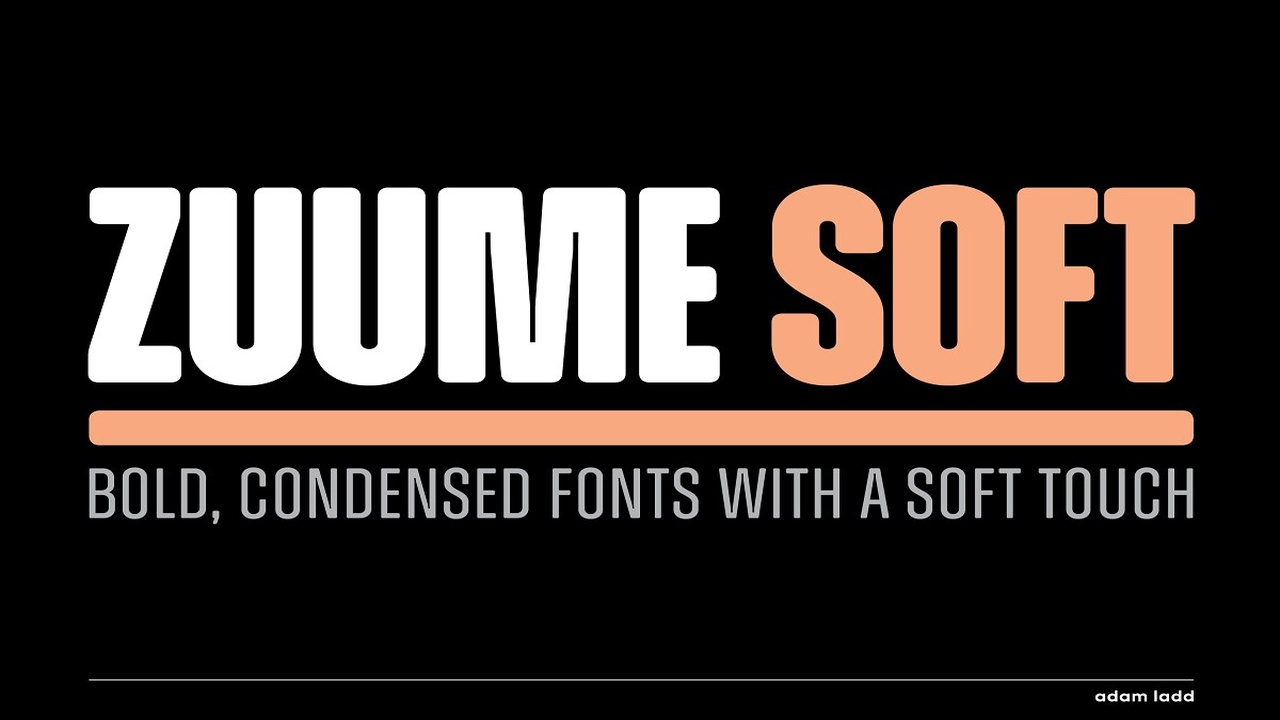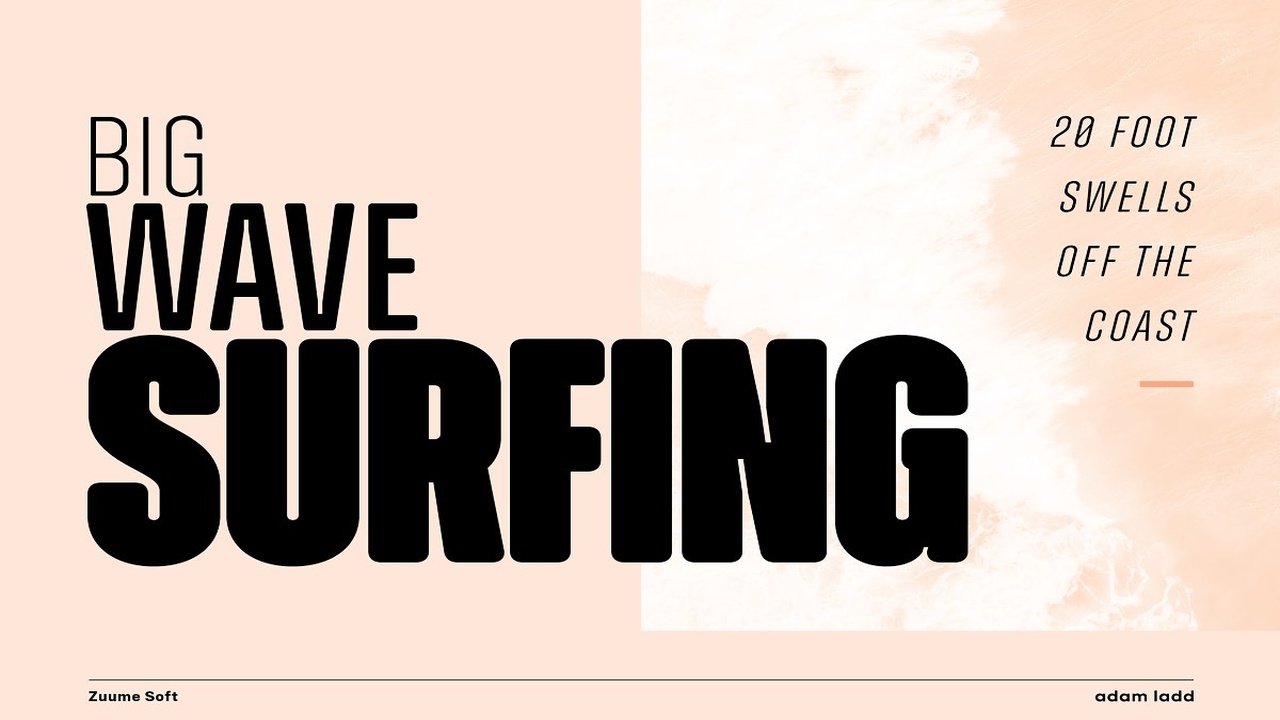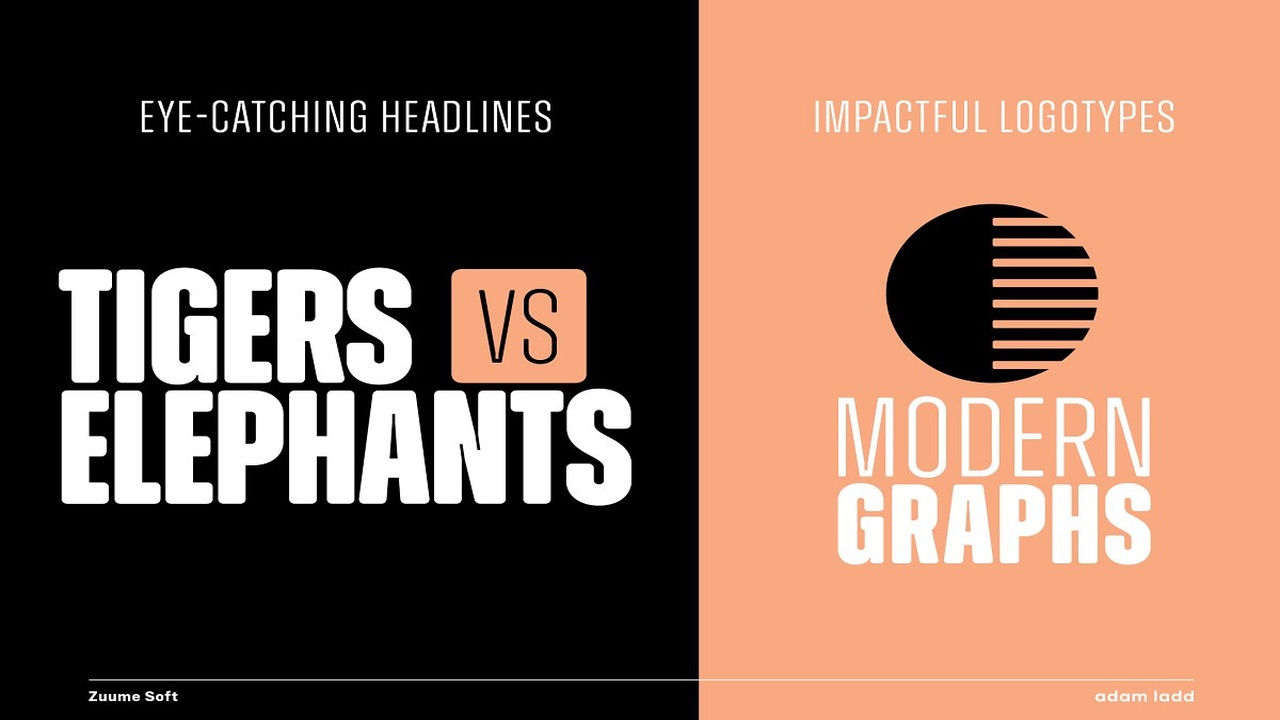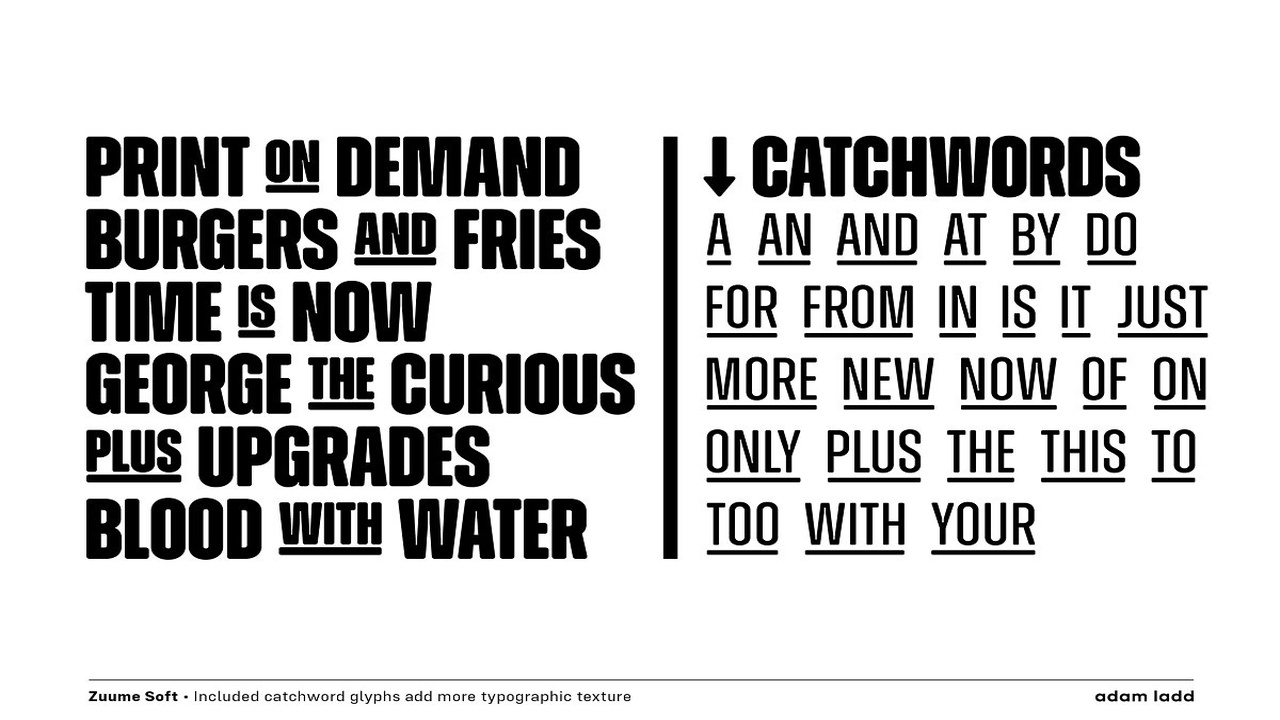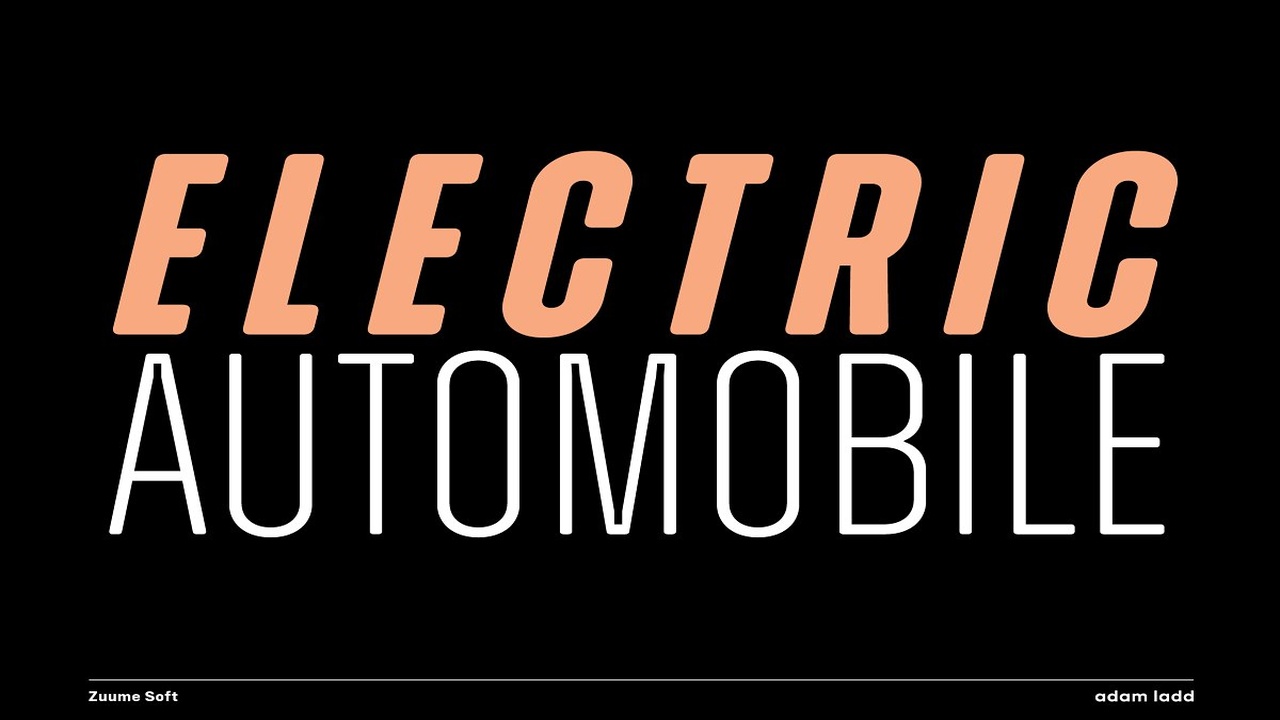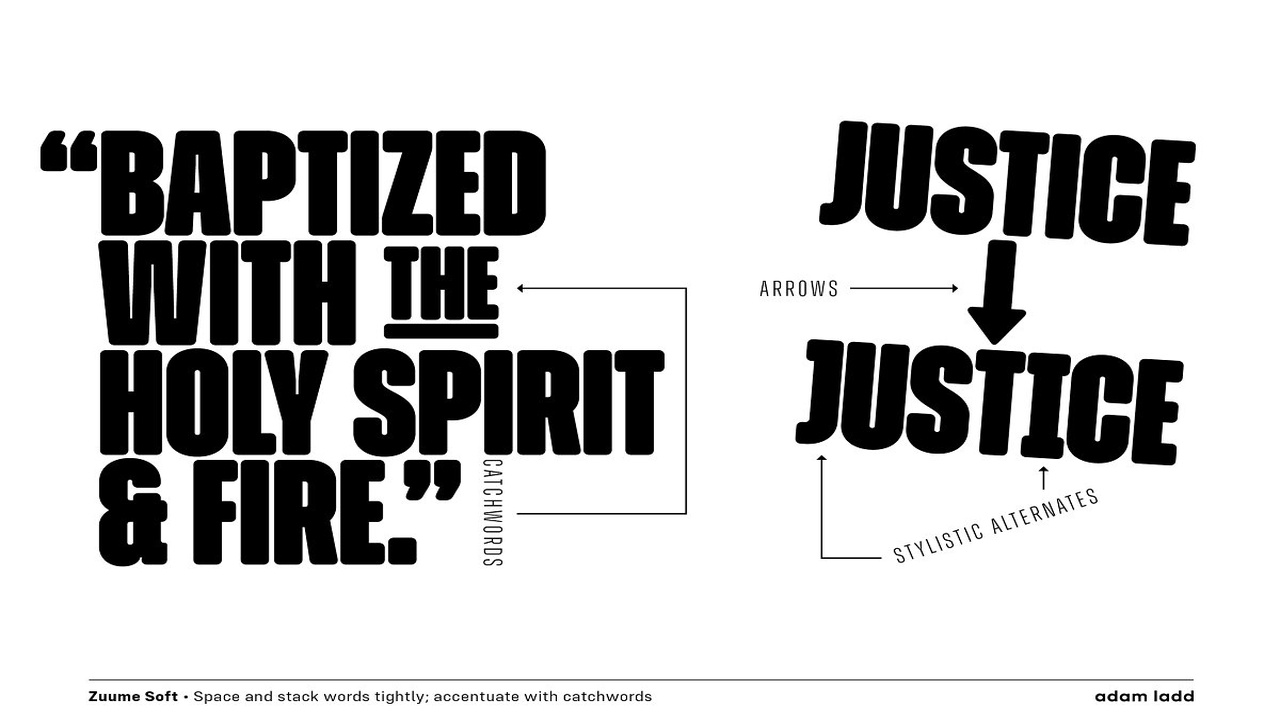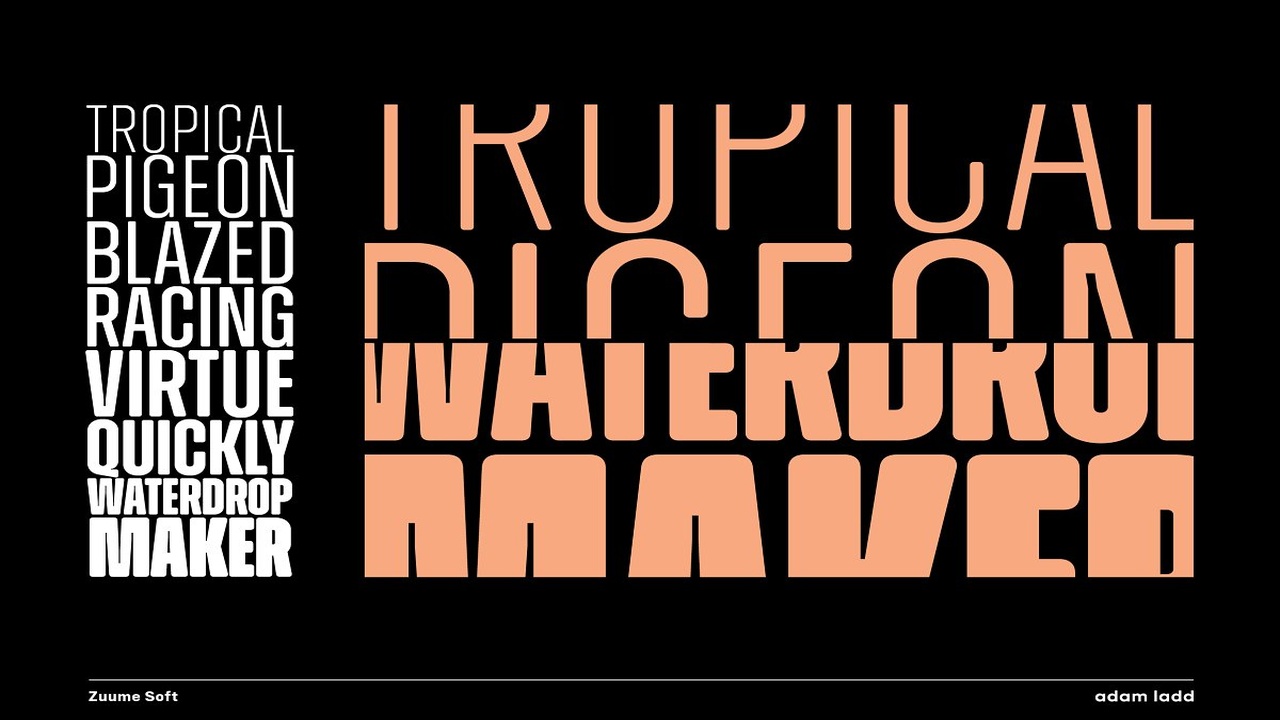
70% OFF INTRODUCTORY SALE = $13 (regular family price = $45)Zuume Soft is a high-impact, condensed sans serif, display font family with a soft touch, A sister to Zuume, this version features round corners for a little bit of a friendly appearance, Coming in multiple weights and italics, its range in thickness give a sharp, technical feel in the lighter weights, while the bold, blacker weights are meant to be tightly spaced and stacked for a visual punch
A distinct characteristic of this all caps typeface is the notched and extended ink traps meant for both function and aesthetic interest, The strong and sturdy design makes it ideal for eye-catching headlines, branding, packaging, magazines, sports, logos, and more
Also part of each font file are matching pre-designed catchwords that add texture to your typography, Stylistic alternates and arrow glyphs increase the options available as well, Zuume Soft includes many features:Catchword glyphs (PUA-encoded)Stylistic alternatesArrowsFractions, numerators, denominatorsSuperscript, subscriptSlashed zero16 OpenType (